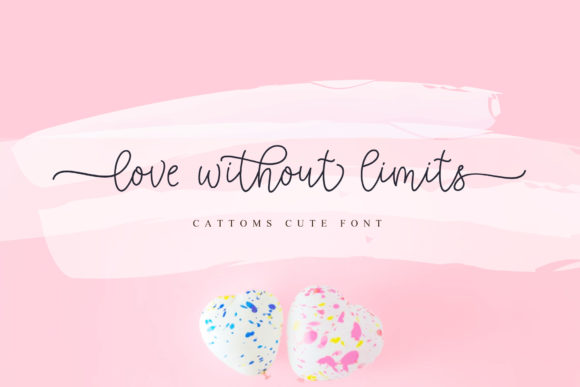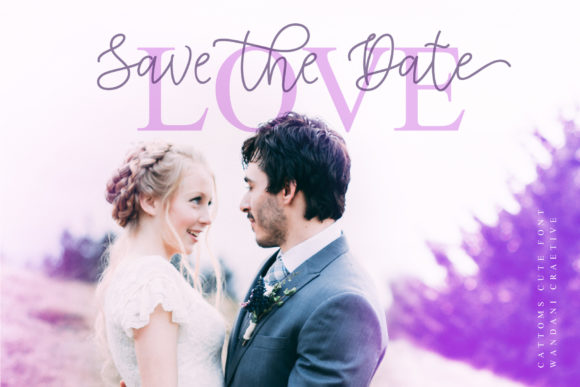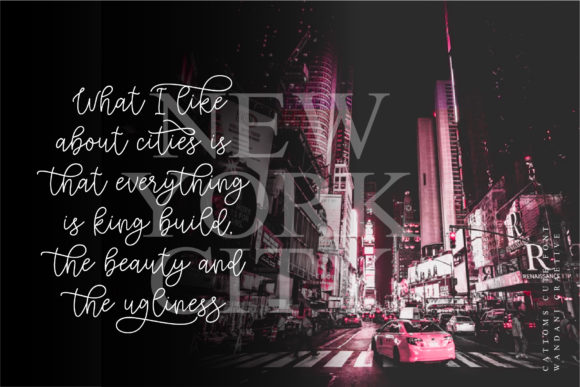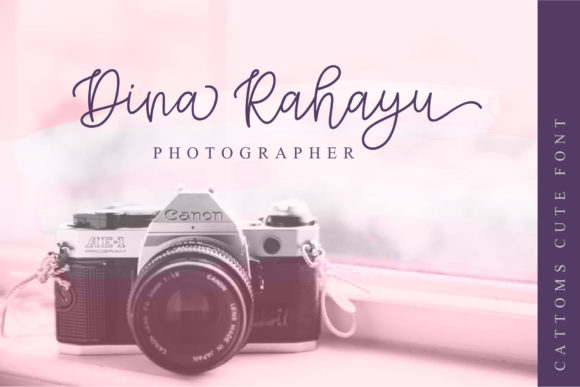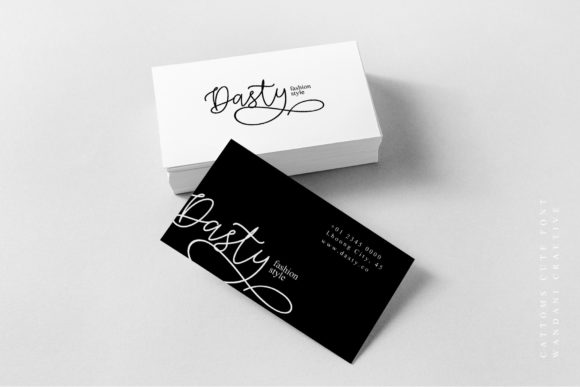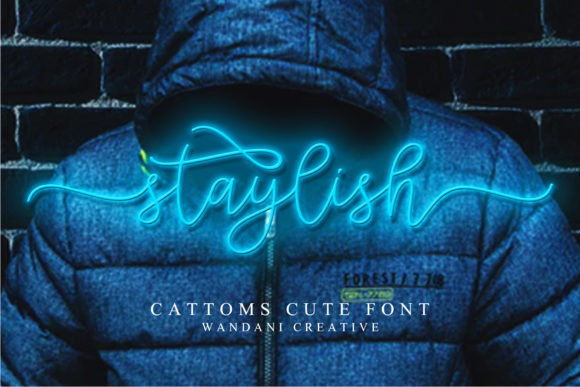
Meet the Font that Captivates Your Heart
Who hasn’t doodled in a notebook or scribbled a love note to a friend at some point? Those carefree, handwritten moments are where creativity often begins. For designers, capturing that same sense of whimsy and personality in a font can be a challenge. That’s where Cattoms Cute Font comes in – a delightful handwritten font designed to evoke a sense of playfulness and authenticity.
With its extensive set of unique characters, Cattoms Cute Font is more than just a cute face – it’s a valuable tool for designers looking to add a touch of personality to their projects. Whether you’re working on a children’s book, a wedding invitation, or a social media campaign, this font is sure to bring a smile to your face and a touch of magic to your design.
- Unique Characteristics: Cattoms Cute Font features a playful, cursive design with rounded edges and subtle flourishes, making it perfect for creating a friendly and approachable tone in branding, advertising, and editorial content.
- Font Weight: The font includes multiple weights, from Light to Bold, allowing designers to adjust the level of emphasis and visual hierarchy in their designs.
- Language Support: Cattoms Cute Font supports a wide range of languages, including Latin-based languages, making it a versatile choice for global design projects.
Overall, I found Cattoms Cute Font to be a charming and playful addition to any design project. Here’s what I liked:
- ✨ The font’s cursive script style is well-suited for titles, headings, and other creative elements.
- ✨ The font’s size and line height are adjustable, making it easy to customize for different design needs.
- ✨ The font’s whimsical feel is perfect for children’s books, educational materials, and other projects that require a lighthearted tone.
- ⚠️ The font’s legibility can be affected by the size and resolution of the text. At very small sizes, the letters can become difficult to read.
- ⚠️ The font’s cursive style may not be suitable for body text, as it can be slow to read and may not be as clear as a standard serif or sans-serif font.
- ⚠️ The font’s charm can also be a drawback, as it may not be taken seriously in more formal or professional contexts.
Overall, I think Cattoms Cute Font is a great choice for designers who want to add a playful touch to their projects. However, it’s not a substitute for a standard font, and should be used judiciously to avoid overwhelming the reader.
Some tips for getting the most out of Cattoms Cute Font include:
- Using the font in combination with bold or italic text for emphasis.
- Pairing the font with bright, playful colors to create a fun and whimsical design.
- Using the font to create custom icons and graphics.
Common use cases for Cattoms Cute Font include:
- Designing children’s products,
Alternatives to Cattoms Cute Font
Lobster is a popular script font that is ideal for use in titles, headings, and short text passages. It is often used in modern and creative designs. Compared to Cattoms Cute Font, Lobster has a more elegant and refined look, making it suitable for formal and professional projects.
Great Vibes is a beautiful script font that is perfect for use in invitations, wedding designs, and other creative projects. It has a more casual and playful feel compared to Cattoms Cute Font, making it ideal for informal and fun designs.
Crimson Text is a serif font that is often used in body text and paragraphs. It has a more traditional and classic look compared to Cattoms Cute Font, making it suitable for use in books, magazines, and other print materials.
Q: What is the recommended font size for using Cattoms Cute Font?
The recommended font size for Cattoms Cute Font is between 12-24 points, depending on the application and the desired level of readability. For body text, a font size of 14-18 points is recommended. For headings and titles, a font size of 24-36 points is recommended.